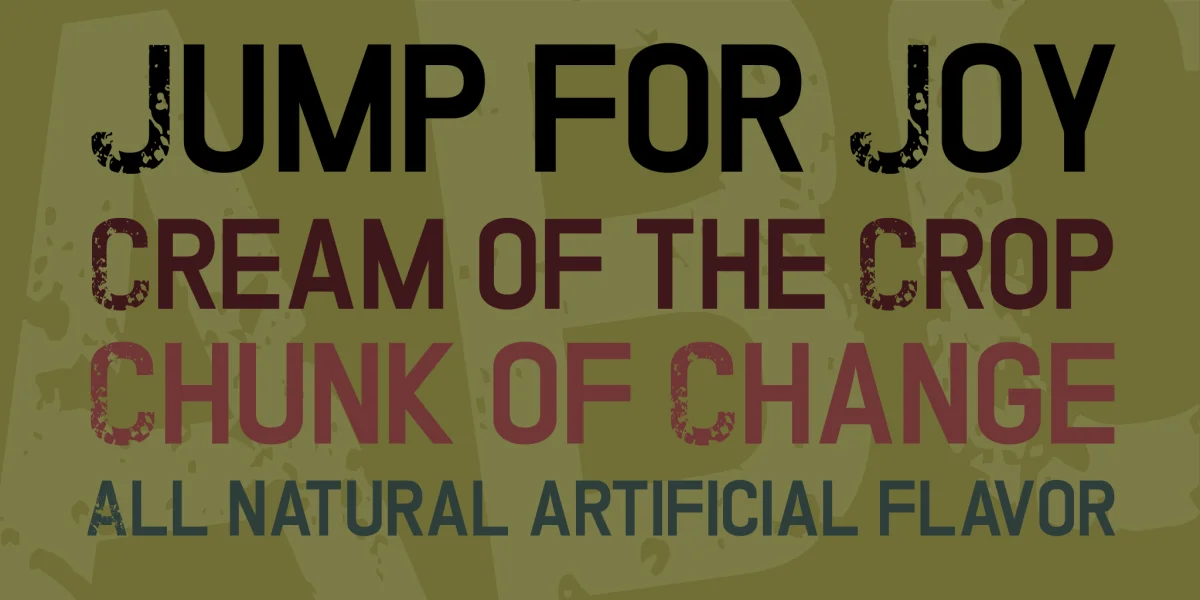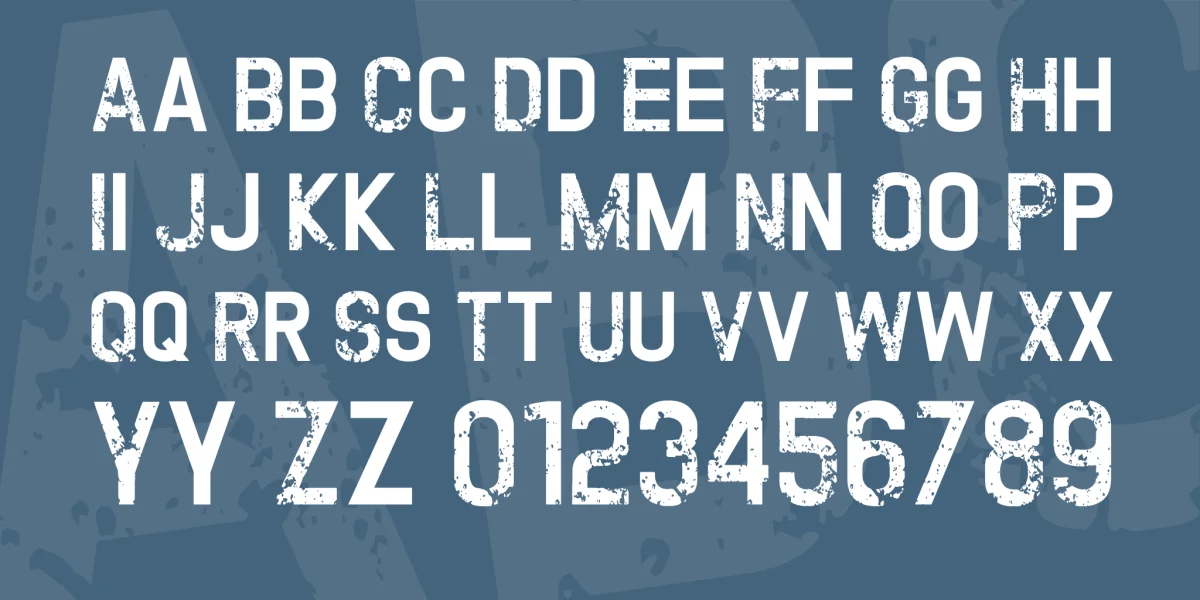
TWOFOLD uncomplete DeSign created by Situjuh Nazara. It is the fancy eroded uppercase and the basic san lowercase. However it is lack of punctuation and symbols. It is free for non-commercial or commercial use. You may complete the incomplete, or you may ask me to.